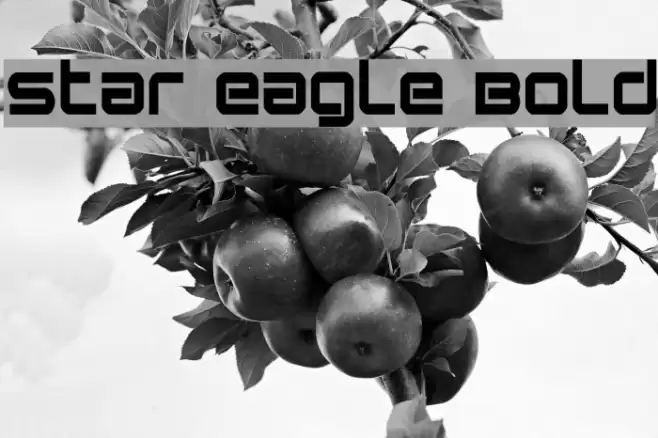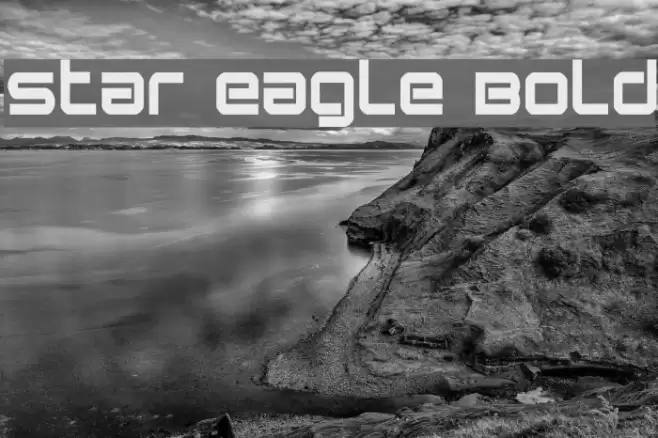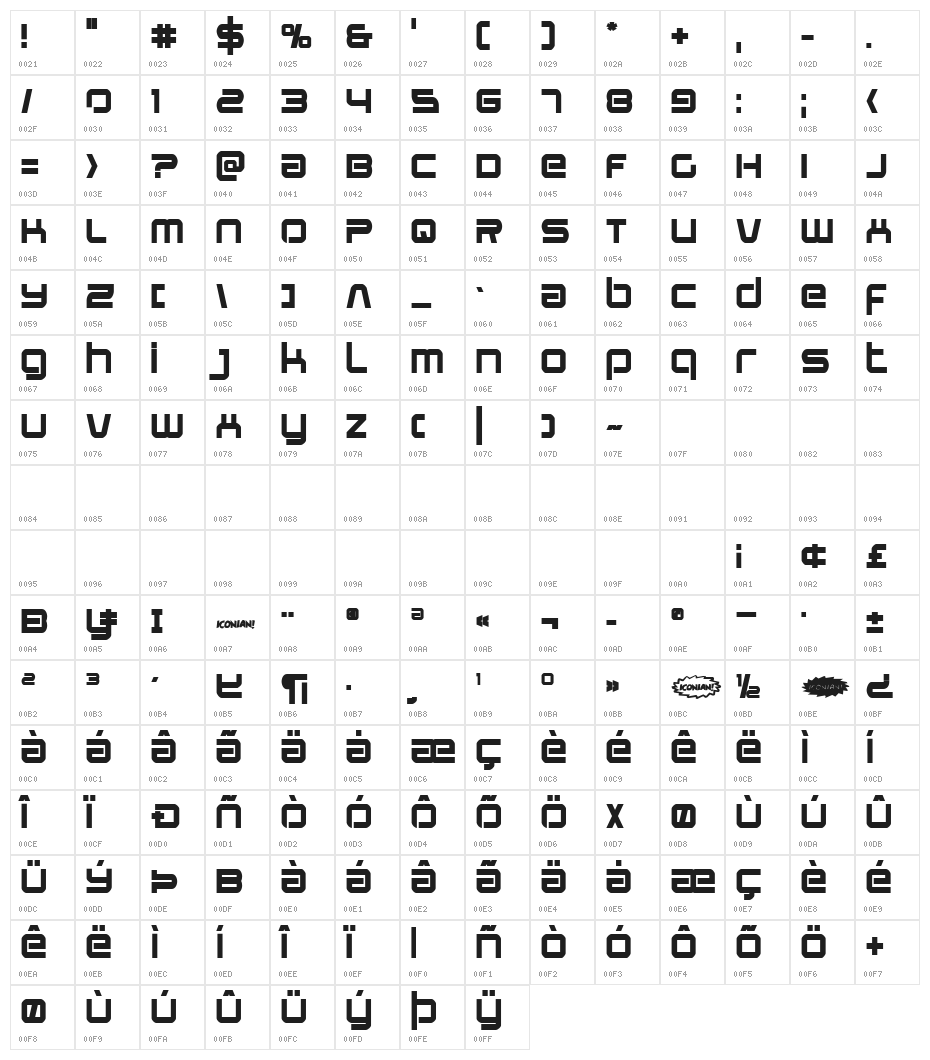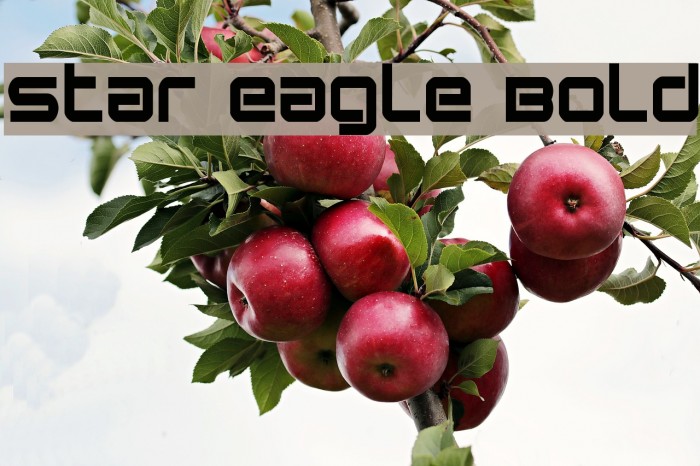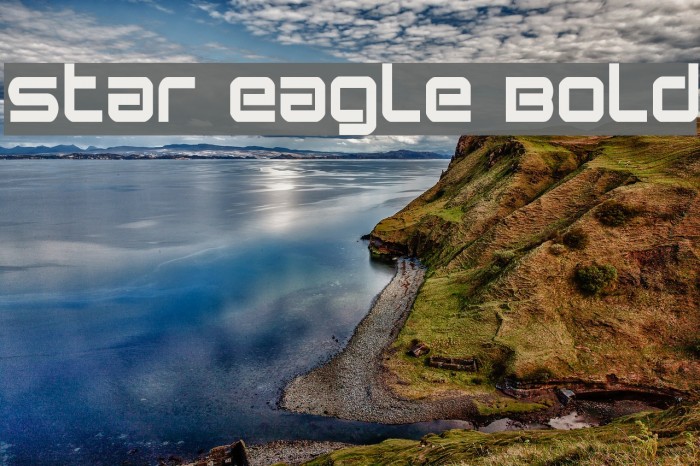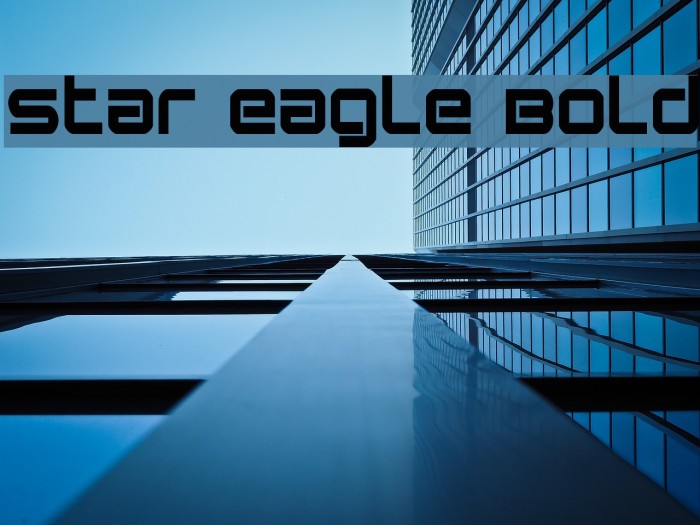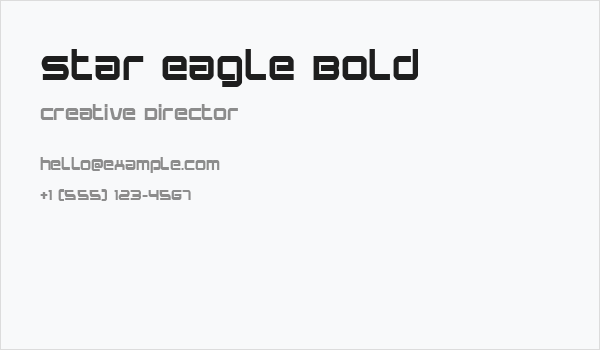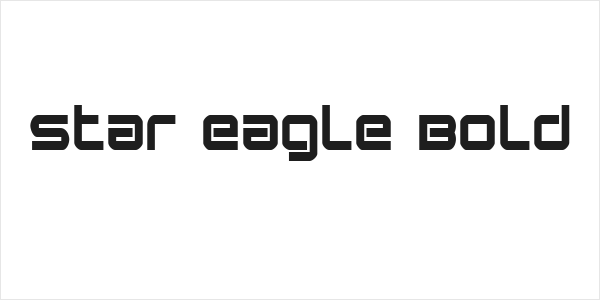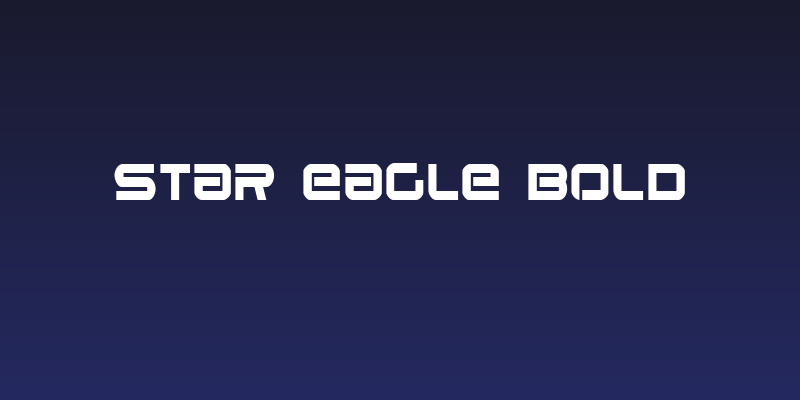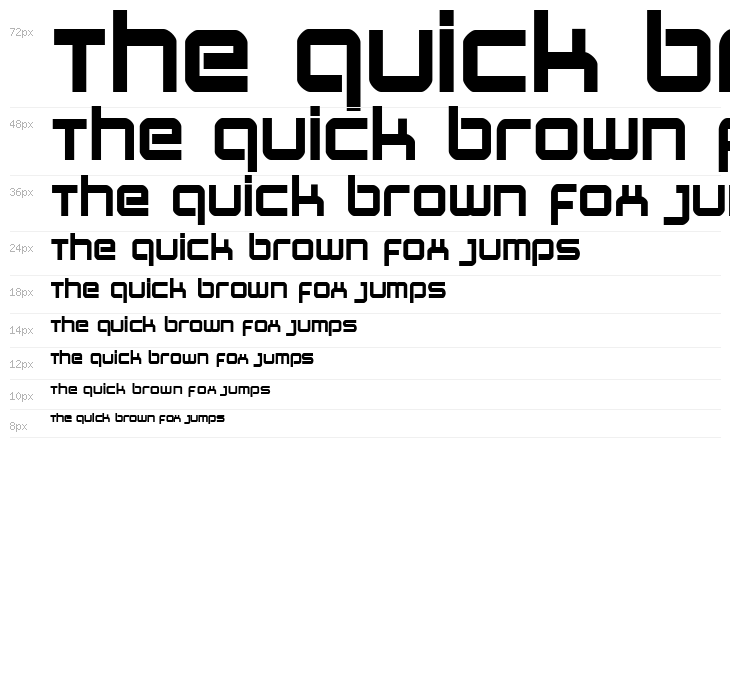
Star Eagle Bold Font
Star Eagle Bold Description
This font features a bold, geometric design with a futuristic aesthetic. The characters are constructed with straight lines and sharp angles, giving it a modern and tech-inspired look. The uppercase and lowercase letters maintain a consistent style, with a uniform height and width that enhances readability. The numbers and special characters are designed to match the overall geometric theme, making them suitable for digital displays and modern interfaces. The font's boldness and clarity make it ideal for attention-grabbing headlines and logos.
A bold, geometric font with a futuristic and modern aesthetic from Uncategorized fonts.
- Proposed Projects: Ideal for technology branding, video game titles, sci-fi movie posters, and digital interfaces.